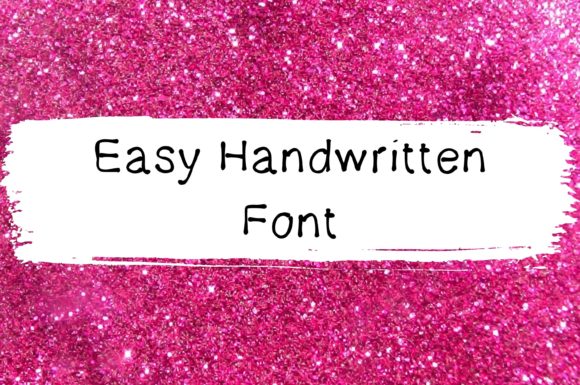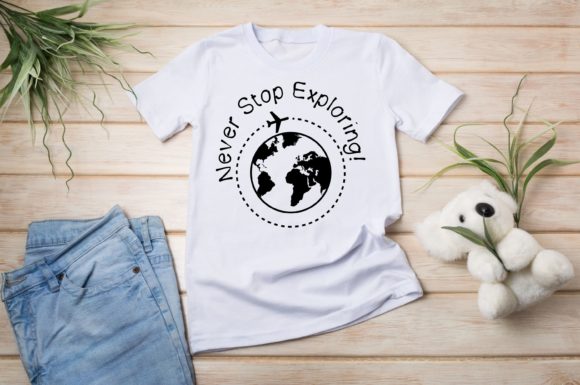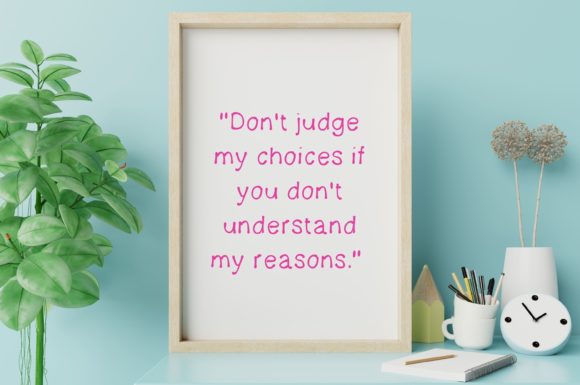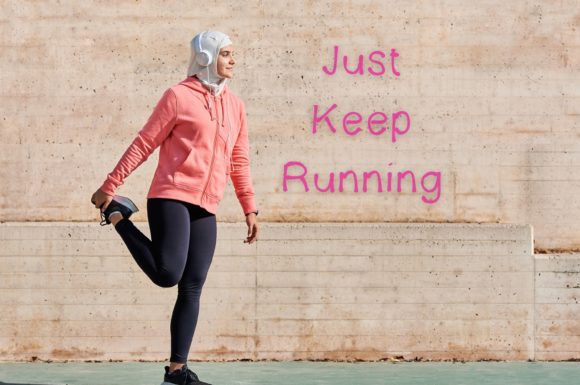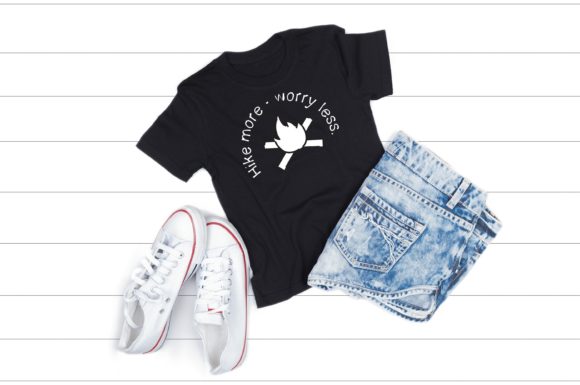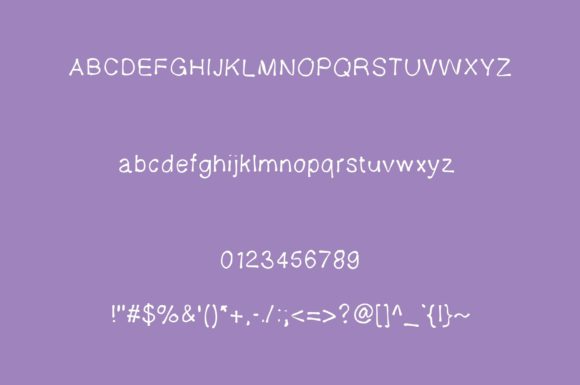
Easy Font
About Easy Font
“Easy” is a cute, simple, and clean handwritten font crafted to bring a delightful and straightforward aesthetic to your projects. Its suitability extends to a diverse range of applications, making it an excellent choice for book texts, documentation, business reports, correspondence, magazines, newspapers, posters, advertisements, multimedia, and corporate design.
The cuteness and simplicity of “Easy” make it an ideal option for various textual and visual communication needs. Imagine it enhancing the readability of book texts, where its clean and handwritten style adds a touch of warmth and approachability. Picture it in business reports and correspondence, conveying information with clarity and a friendly tone.
For both print and digital media, “Easy” offers versatility that aligns with diverse design contexts. Its clean design ensures legibility, making it suitable for newspapers, magazines, and corporate materials. Whether utilized in advertisements or multimedia presentations, “Easy” stands out as a font that seamlessly combines cuteness with a clean and straightforward presentation.
In summary, “Easy” goes beyond being just a font; it’s a versatile design tool that caters to a wide array of communication needs. Its cute, simple, and clean characteristics make it an excellent choice for those looking to add a friendly and approachable touch to their creative projects in various contexts.